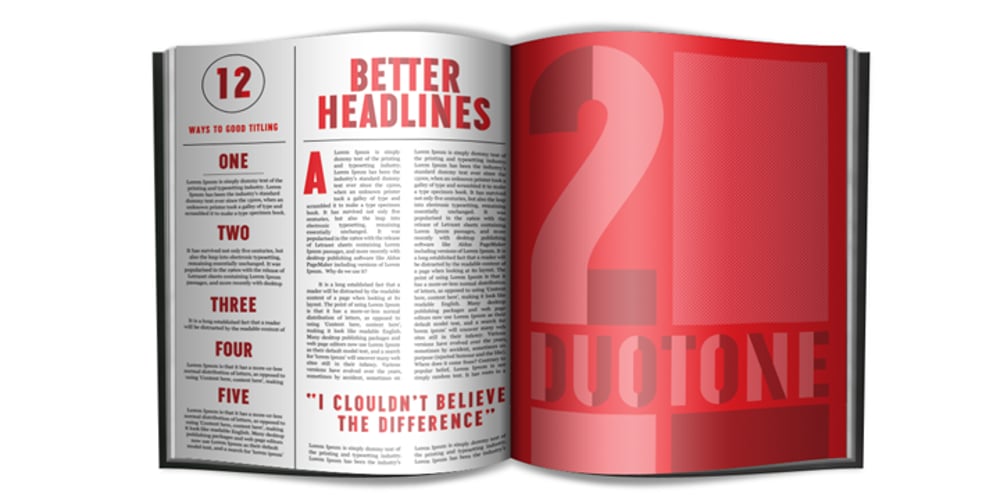
Duotone Font Family was designed by Alex Sheldon and published by Match & Kerosene. Duotone contains 3 styles and family package options. Duotone is a layered font system that allows you to title two-tone headlines. This classic two color lettering style requires no font editing. The regular weight acts as a perfect font pairing to match the titles featuring two-shaded headlines. The shaded weights “Shade One” and “Shade Two” work together to compose instant titling effects that are perfect for advertisements, products, album art, logos, invitations, scrapbooking, wedding announcements, or whatever project you are working on. Duotone’s unique effect is best achieved in a graphics application that allows you to use layers so that you may stack these fonts and assign different colors to them. The regular weight allows you to plot out titles, kerning, and leading. Copy and paste this layer in place. Change the color and font style in the new layer and repeat the process until you have “shade one” and “shade two” assigned with different colors. Hide or delete the regular layer to remove any unwanted aliasing.